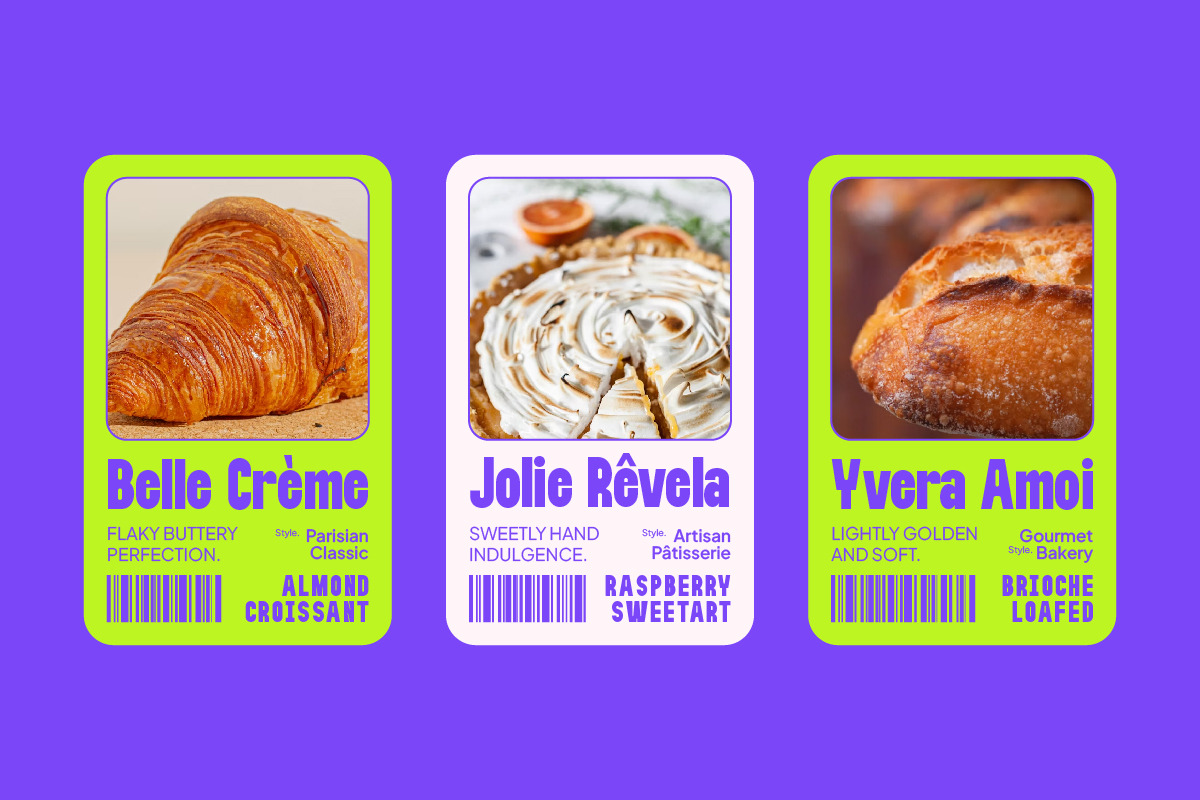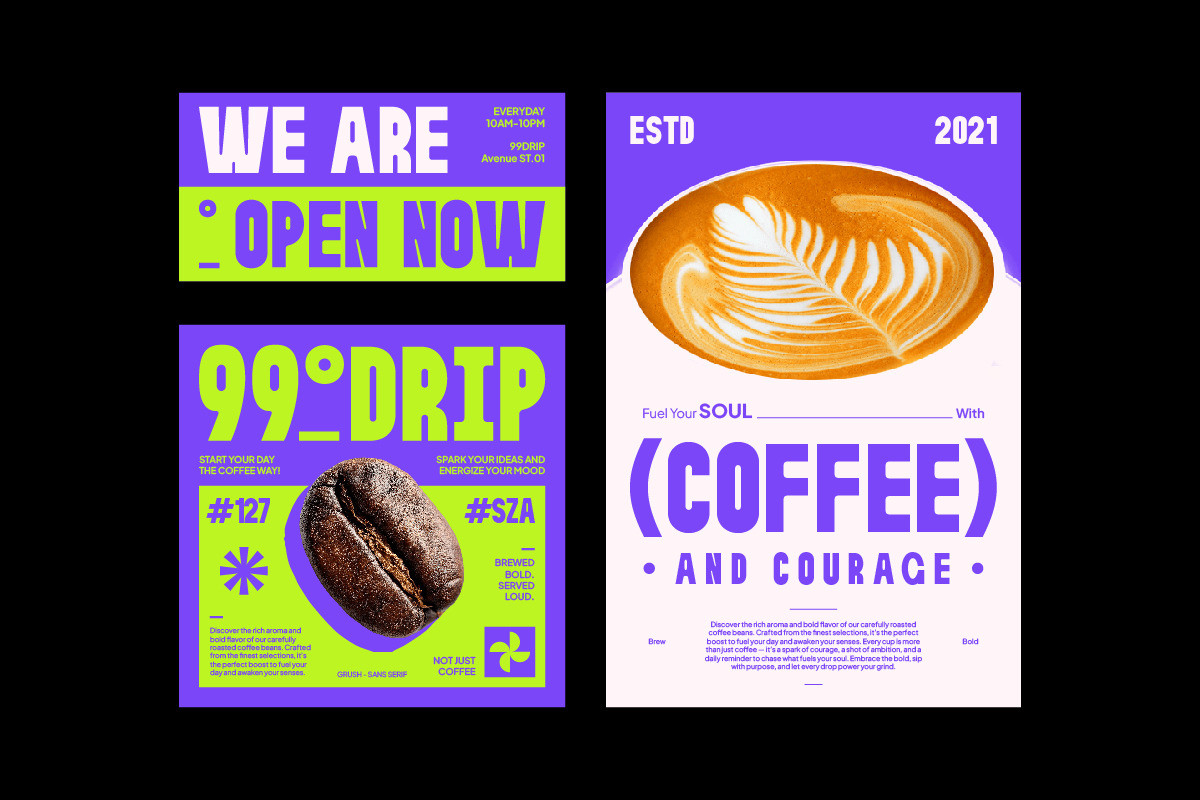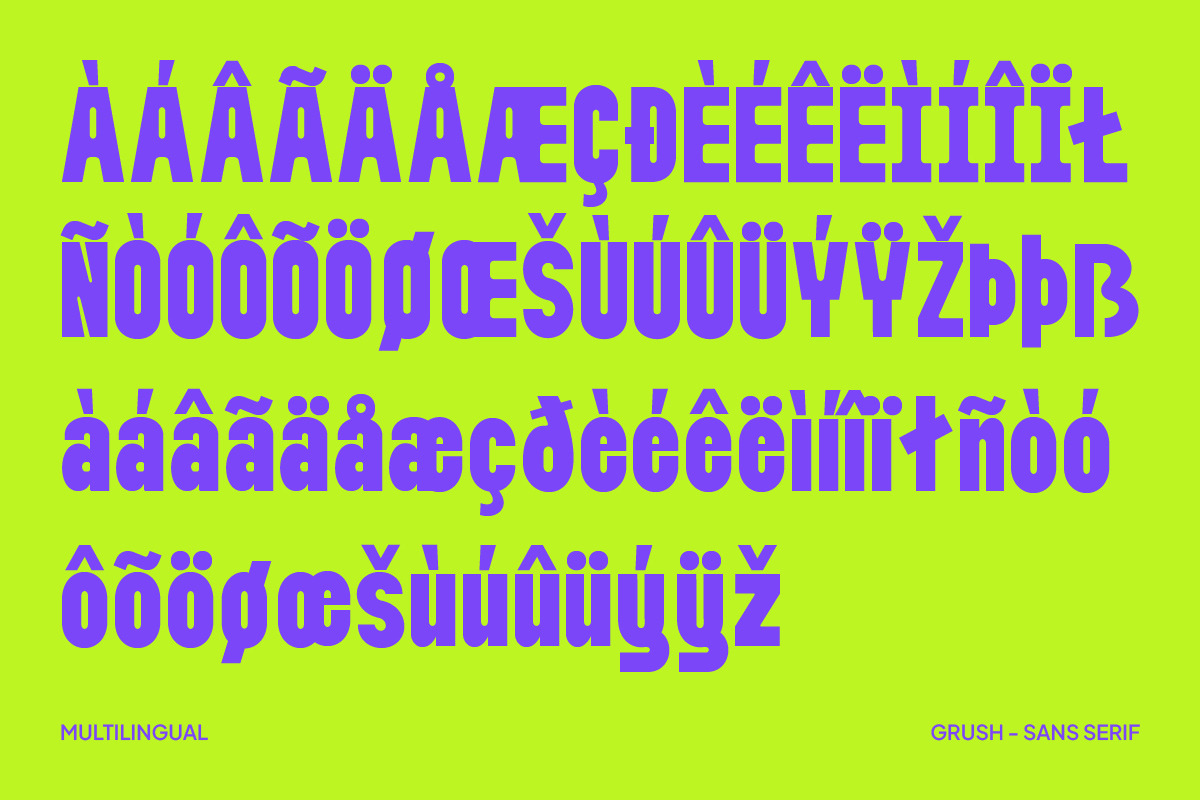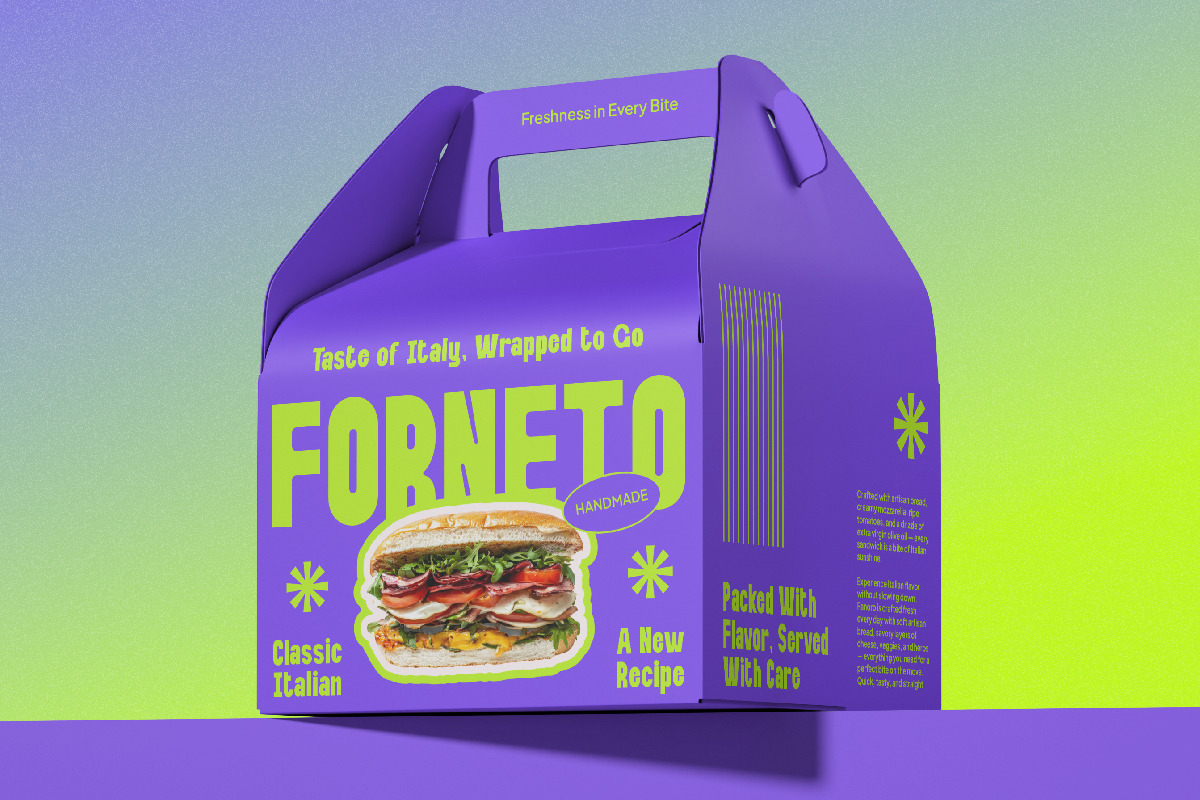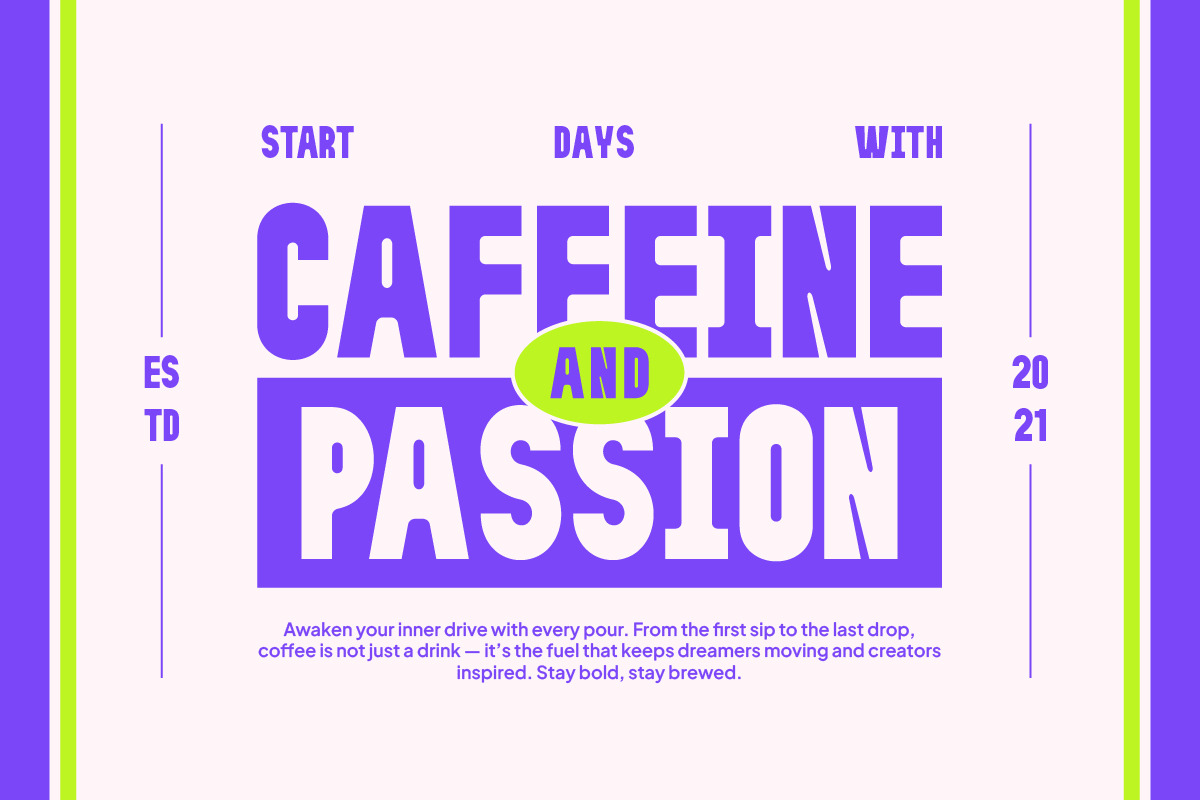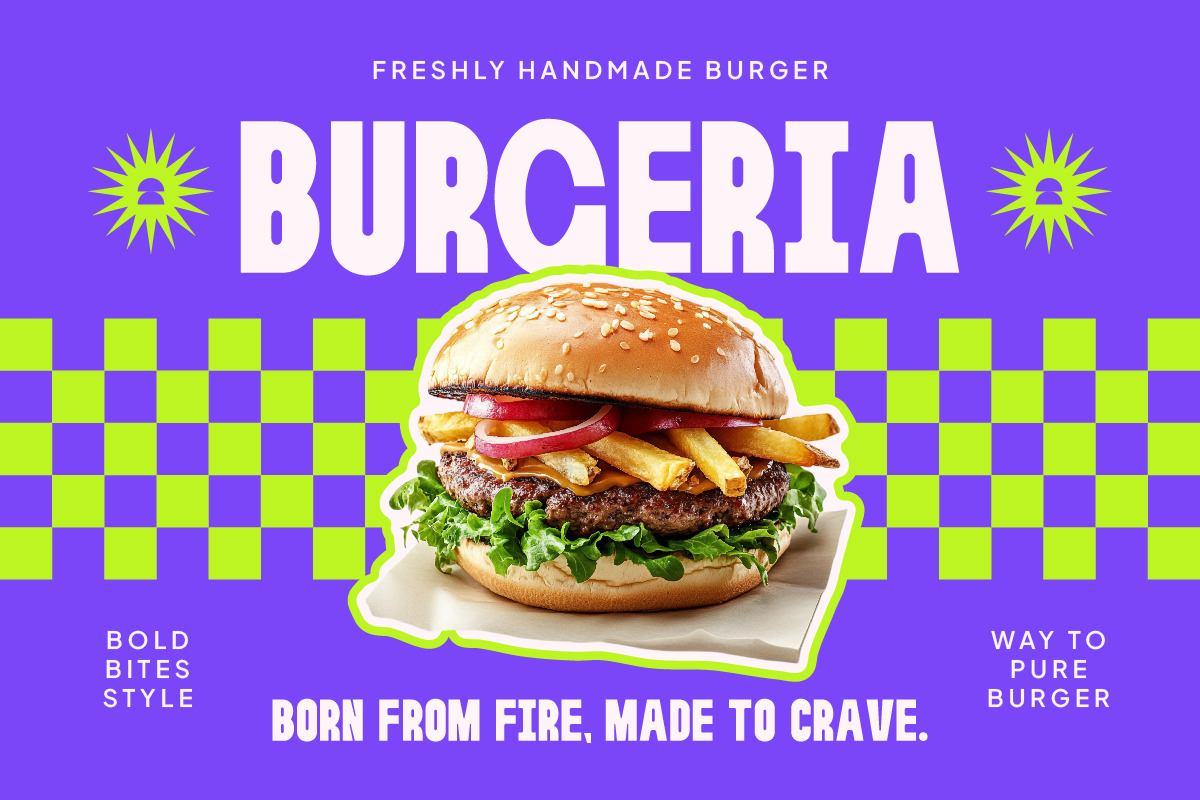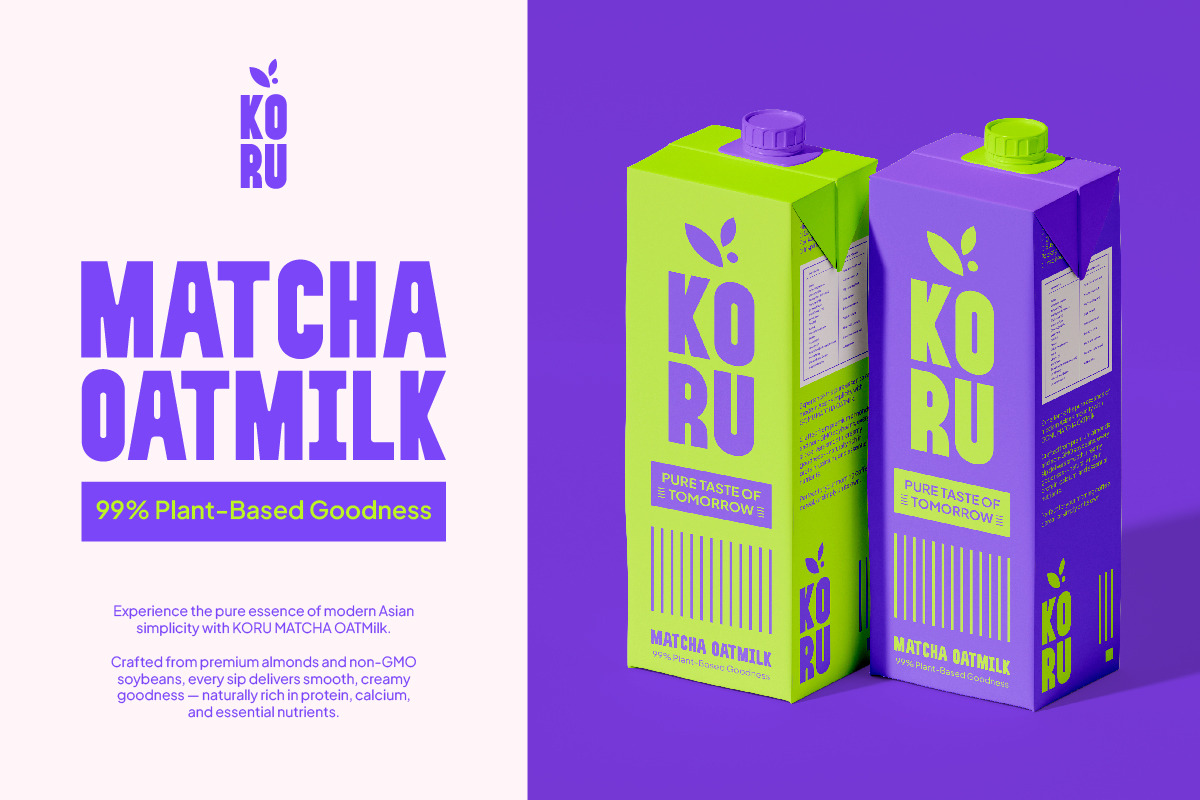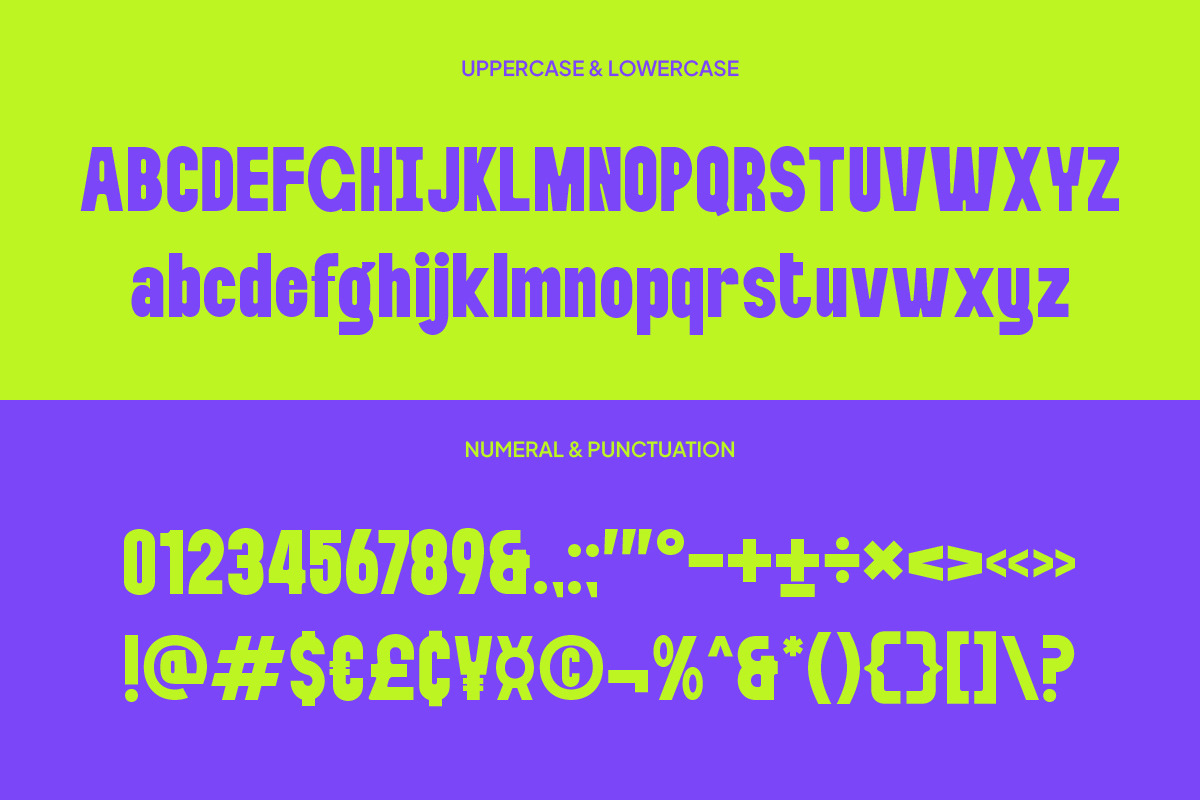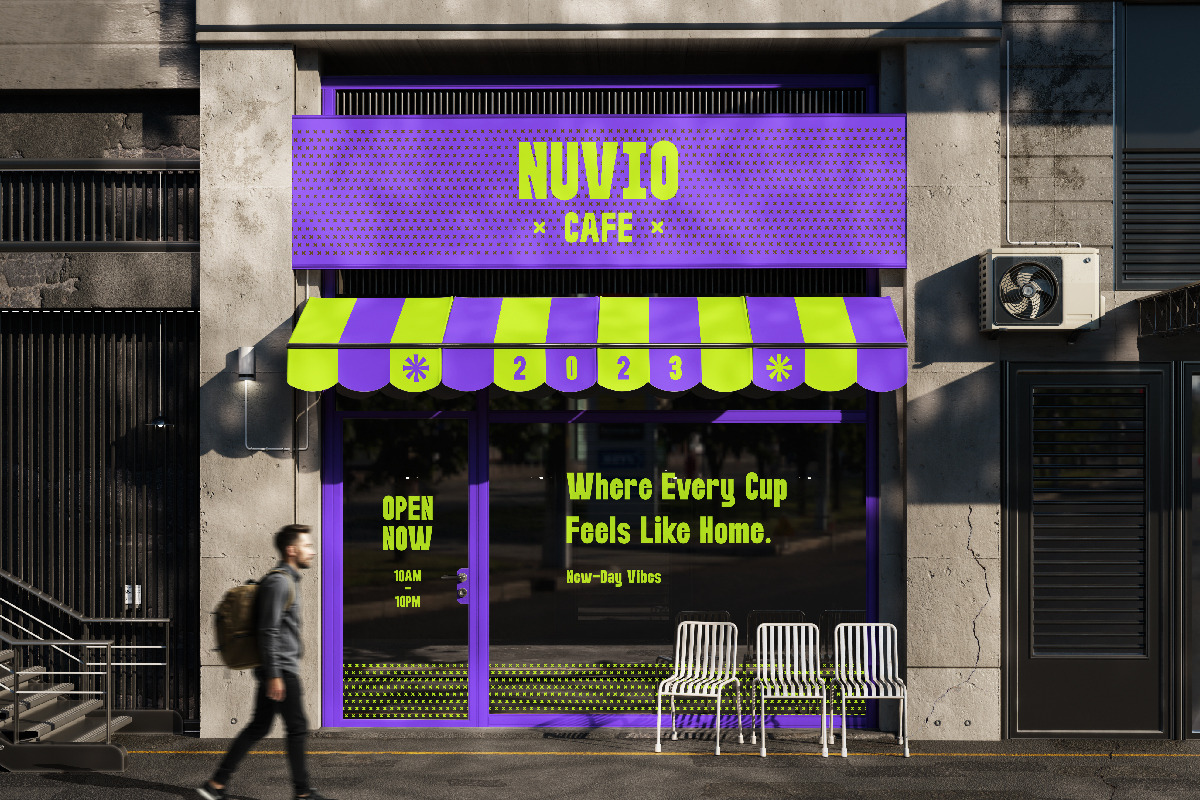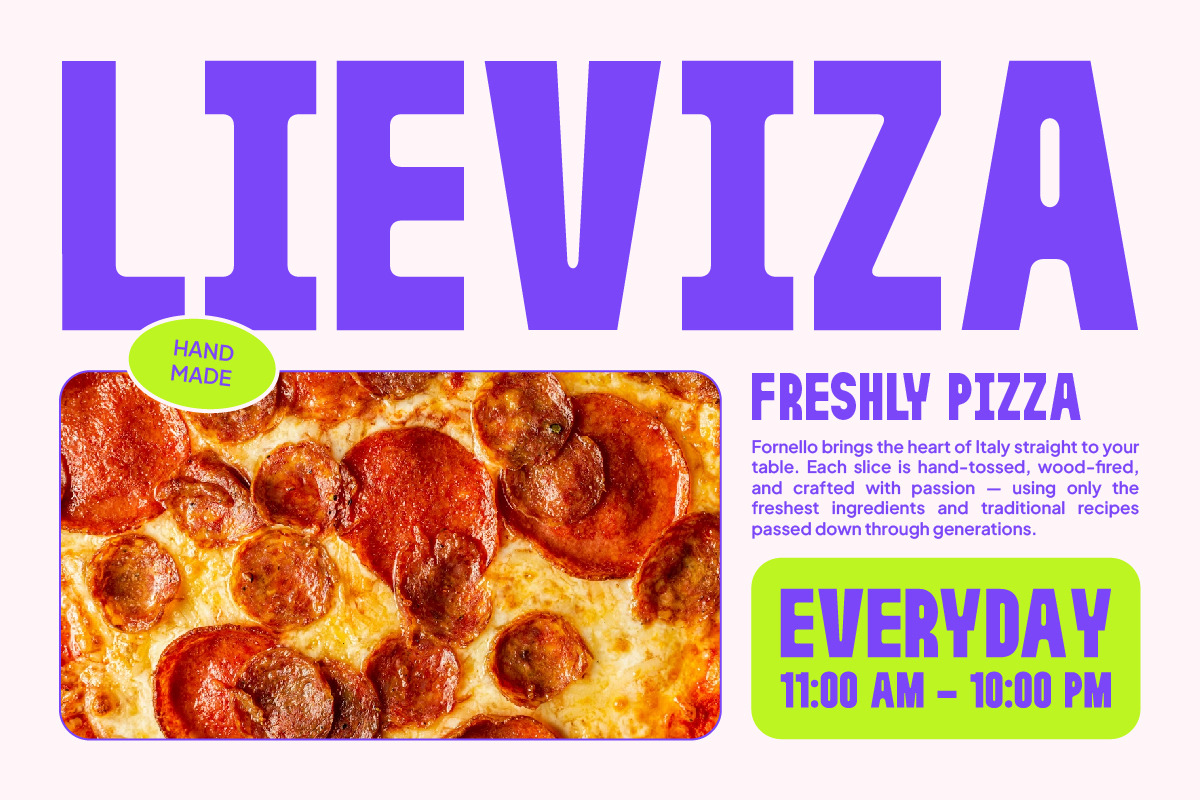
Grush | Display Sans Serif
Proudly present "Grush" A new display sans serif with Chunky Style typeface
A chunky, funky, loud, and cutely proud kinda font. Grush is playful, and bold while not being shouty with its soft corner. It's the kinda font that looks like you wanna give it a big hug.